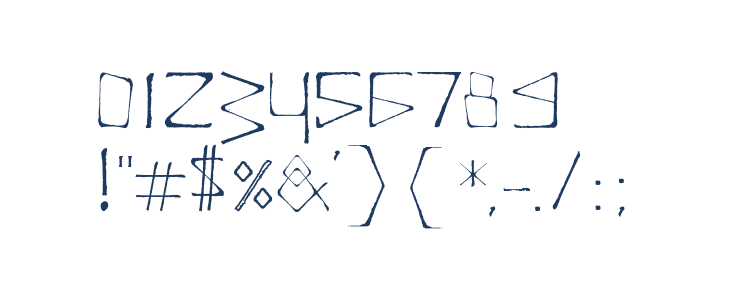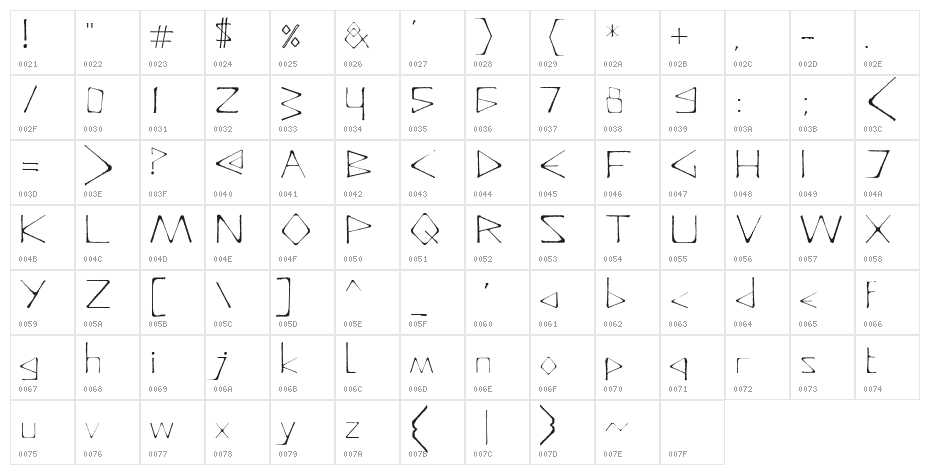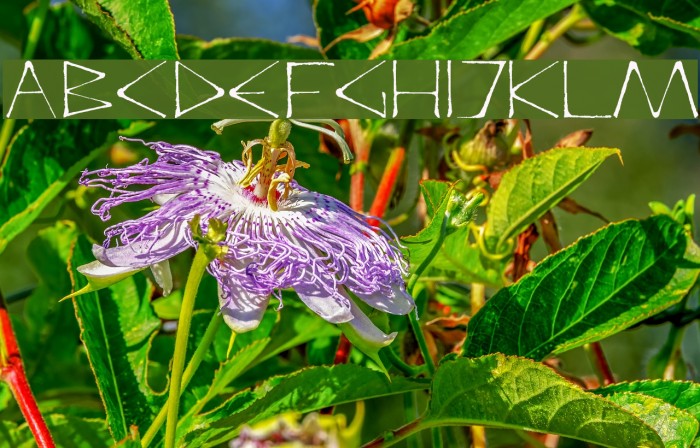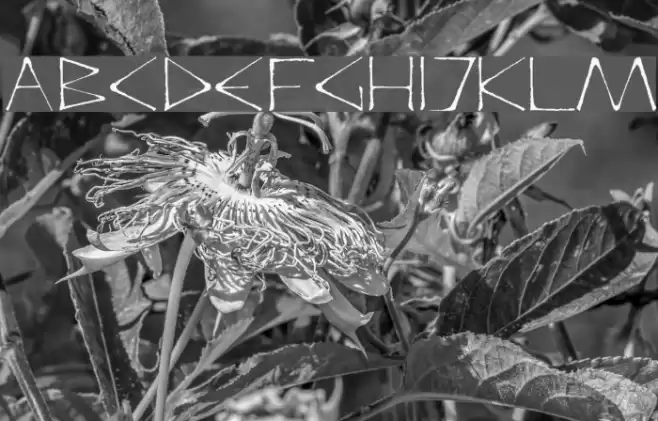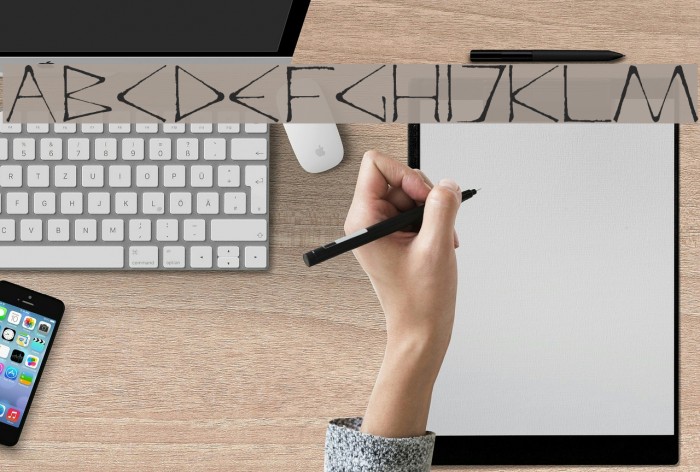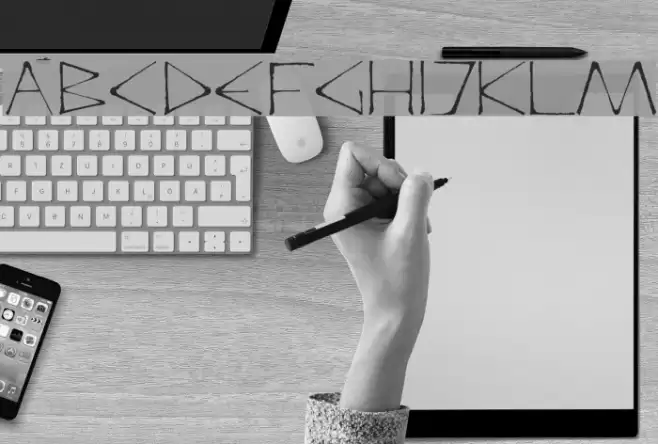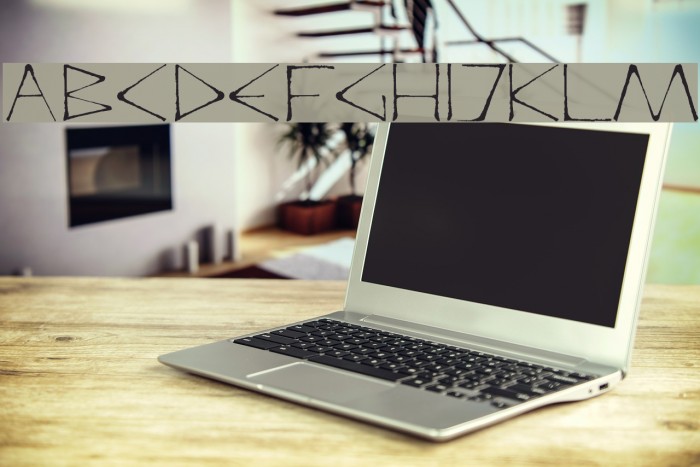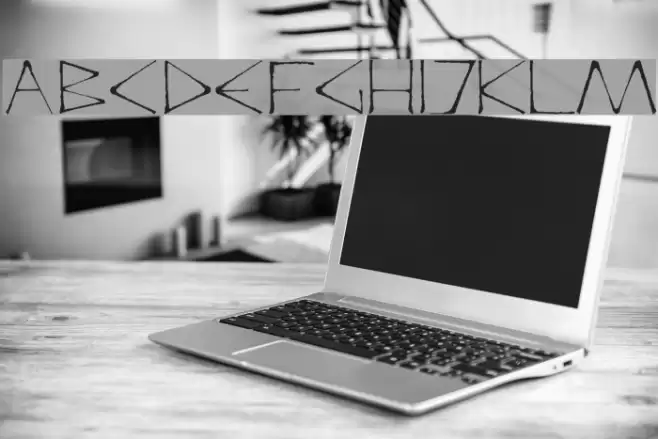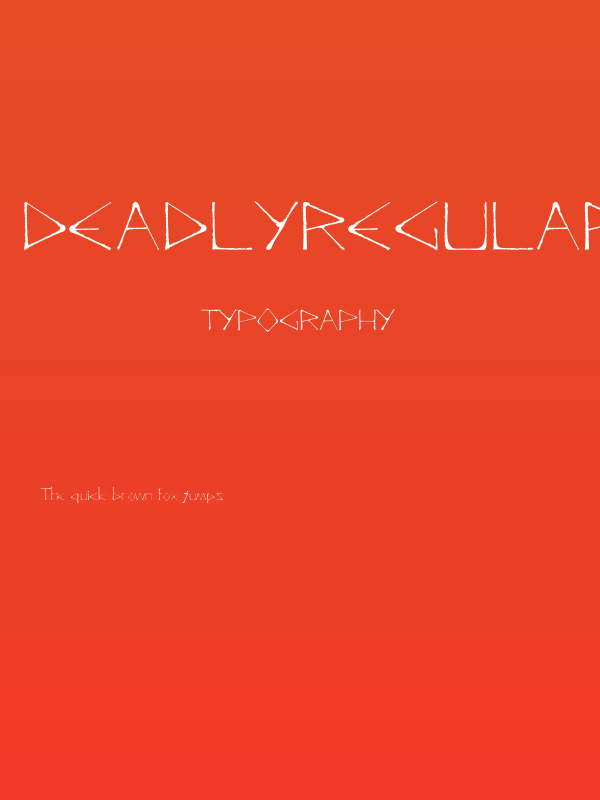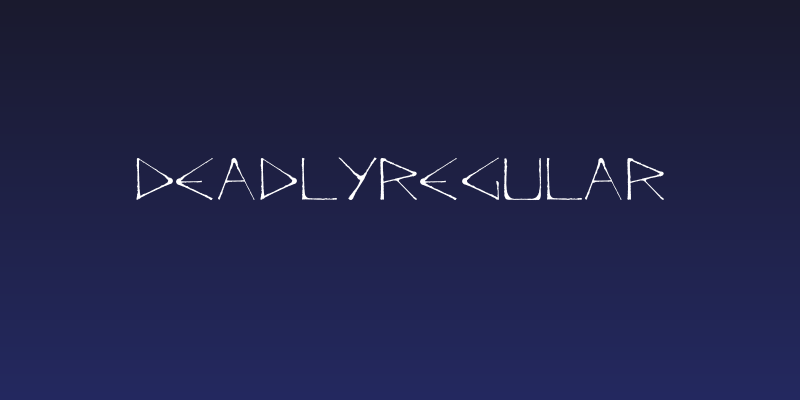
DeadlyRegular Font
DeadlyRegular Description
This font features a unique, edgy design with sharp, angular lines and a slightly distressed appearance. The characters are crafted with a hand-drawn aesthetic, giving them a raw and organic feel. The uppercase and lowercase letters maintain a consistent style, with a slight variation in stroke thickness that adds to the font's dynamic look. Numbers and special characters are included, each maintaining the same distinctive style. This font's unconventional design makes it stand out, offering a bold statement for creative projects.
| Overall Style | Modern, Edgy |
| Proposed Projects | Ideal for album covers, posters, graffiti art, and edgy branding materials. |